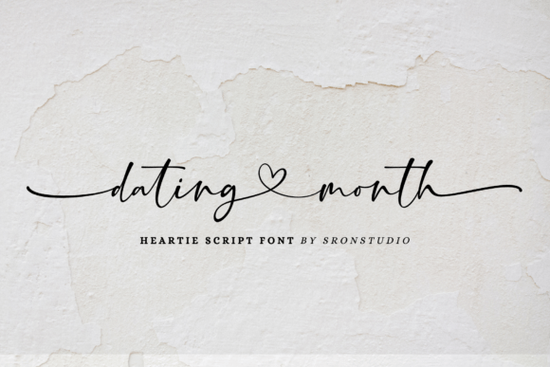
If you're working on a Valentine’s card, wedding invitation, or even a cozy café menu with a romantic vibe, the right script font can make all the difference. That’s where Dating Month comes in a gentle, flowing script that feels personal and heartfelt without being overly ornate. Designed with soft curves and subtle flourishes, it captures warmth and intimacy in a way that works beautifully for both digital and print projects.
What kinds of projects work best with Dating Month?
This font shines in contexts where emotion and connection matter most. Think:
- Anniversary announcements or save-the-date cards
- Hand-lettered-style social media quotes about love
- Custom gift tags for couples or newlyweds
- Branding elements for boutique florists, chocolatiers, or date-night subscription boxes
Because of its natural rhythm and slightly uneven baseline mimicking real handwriting it avoids looking stiff or generic. That human touch helps your designs feel authentic, which is especially valuable if you’re selling personalized products online.
How does it compare to other romantic script fonts?
Not all love-themed fonts are created equal. Some lean too formal (great for weddings, less so for casual date-night flyers), while others feel overly whimsical. Dating Month strikes a middle ground: elegant but approachable, detailed but still highly legible at small sizes.
If you’ve used Barbiedol, you’ll notice it has more dramatic swashes and a bolder presence ideal for fashion or glam-themed designs. Meanwhile, Milk Peach offers an ultra-soft, almost pastel-like delicacy, perfect for baby showers or dreamy branding. For something with more energetic bounce, Back to School Handwritten brings playful spontaneity, though it’s better suited for youthful or educational contexts. And if you need a signature-style font with artistic flair, Artistic Signature delivers that one-of-a-kind autograph look.
Dating Month sits comfortably between these it’s neither too sweet nor too structured, making it versatile across a range of romantic or sentimental uses.
Is it easy to use for beginners?
Yes. The font includes standard Latin characters, numerals, and punctuation, so it works right out of the box with most design software like Canva, Adobe Illustrator, or Silhouette Studio. It doesn’t require special OpenType features to look good, though if your program supports ligatures, you’ll get even smoother letter connections.
One practical tip: pair it with a clean sans-serif (like Montserrat or Lato) for body text or captions. This keeps your layout balanced romantic headline, readable details.
- Match the mood: Is your project warm, personal, and relationship-focused? Dating Month fits.
- Check readability: Avoid using it in all caps or at very small sizes it’s a script, so give it room to breathe.
- Pair thoughtfully: Combine with a neutral, simple typeface for contrast and clarity.
If you’re building a seasonal product line around Valentine’s Day, anniversaries, or even “just because” romance-themed gifts, this font offers charm without cliché and that’s a rare balance worth exploring.